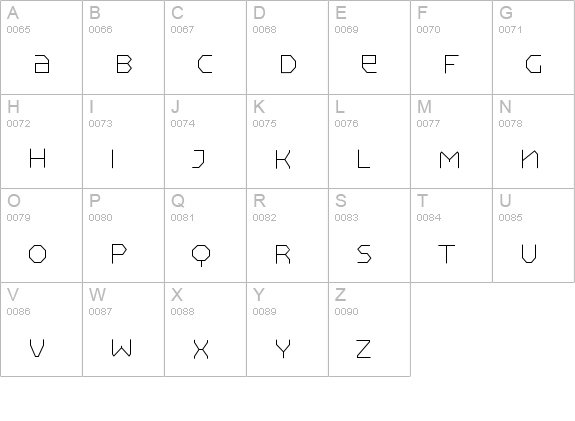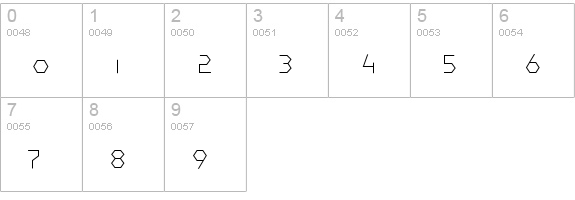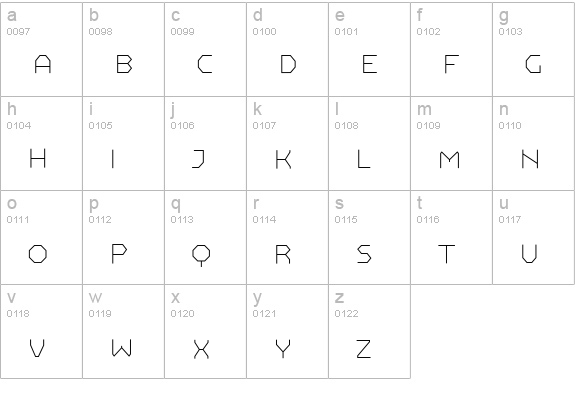
The Pullman-Layer font is a versatile and eye-catching typeface that combines modern style with a touch of elegance. Its unique layered design allows for endless creative possibilities, making it a perfect choice for a wide range of projects. Whether you're designing a logo, poster, or website, Pullman-Layer will help your text stand out and make a lasting impression. What's even better is that the Pullman-Layer font is completely free to download at FontsMarket.com. This means you can start using this stunning font in your designs right away without any cost. Don't miss out on the opportunity to add Pullman-Layer to your font collection and enhance your creative projects with its stylish and sophisticated look. Download it now and let your creativity shine!